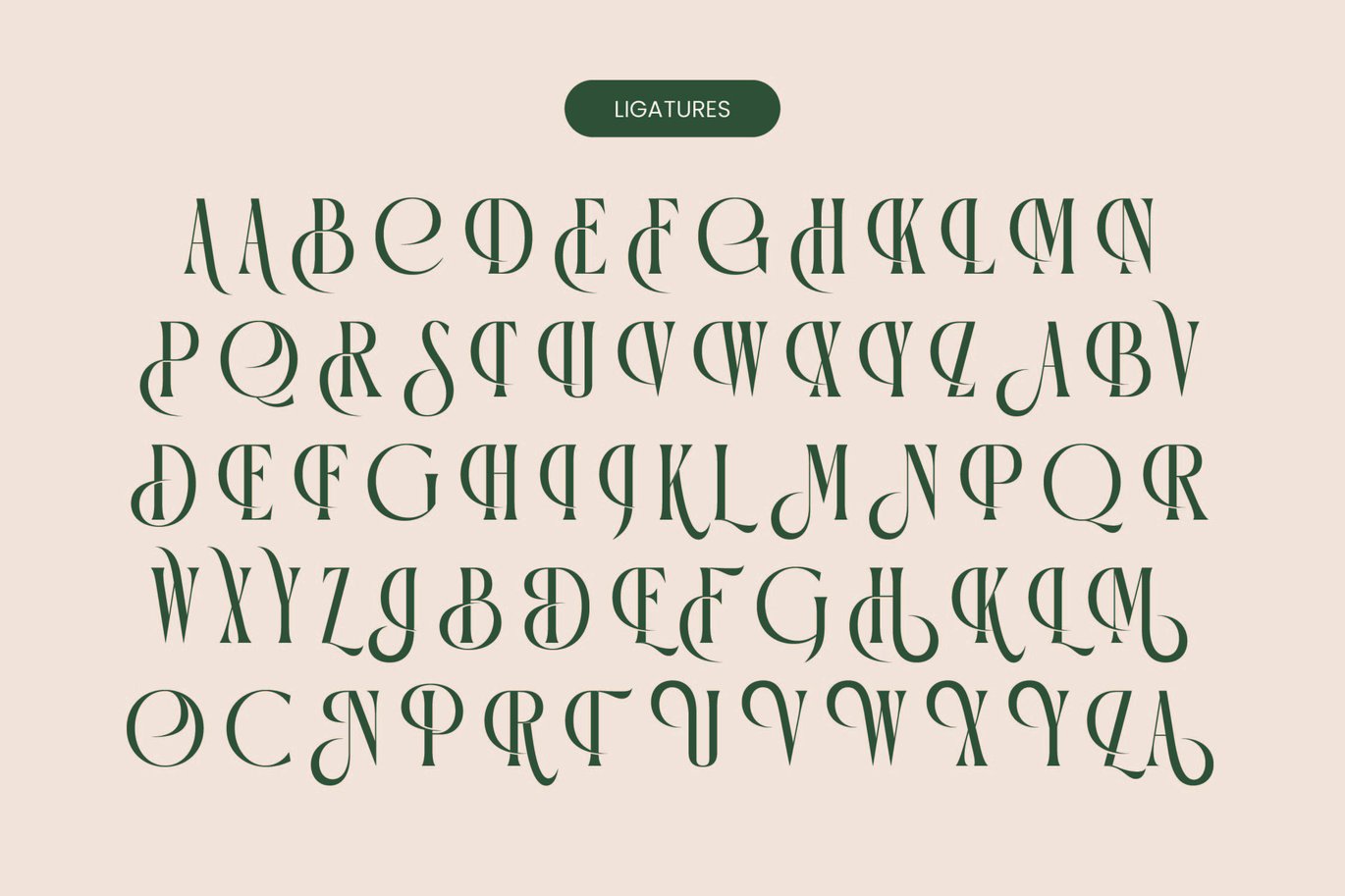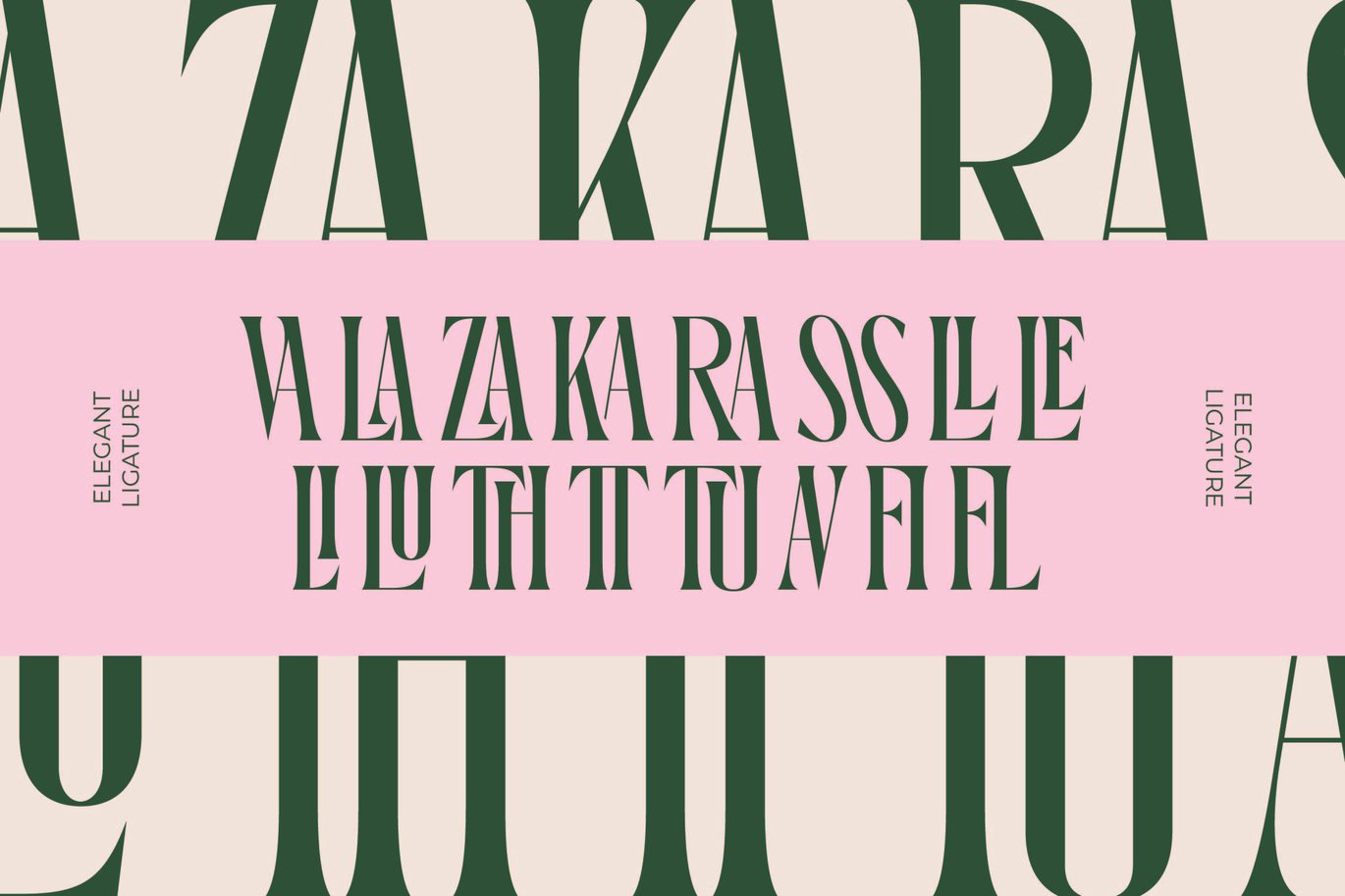
Orleans Brightens – Modern Elegant Serif Font
Orleans Brightens – Modern Elegant Serif Font is a versatile typeface ideal for various projects, including logos, branding, posters, blog headers, advertisements. The free version includes a full set of uppercase and lowercase letters, available in OTF format.